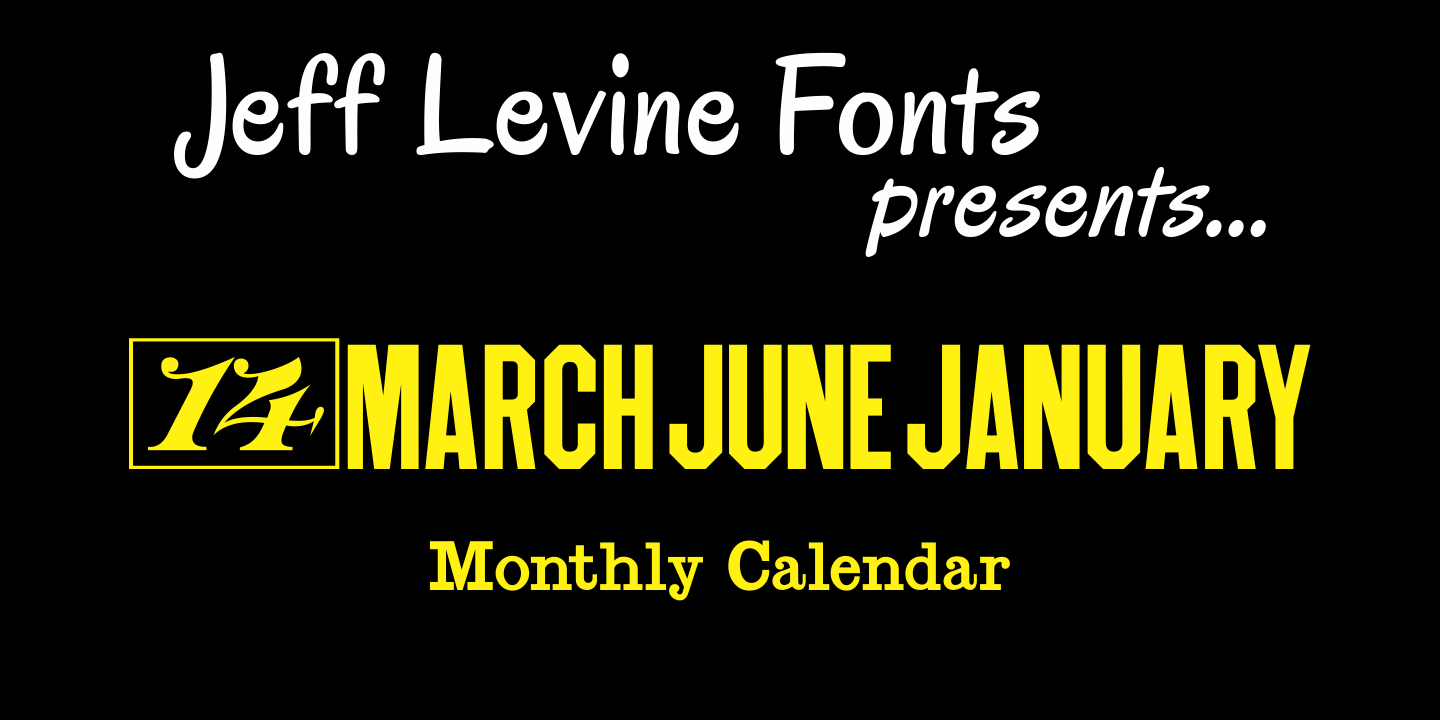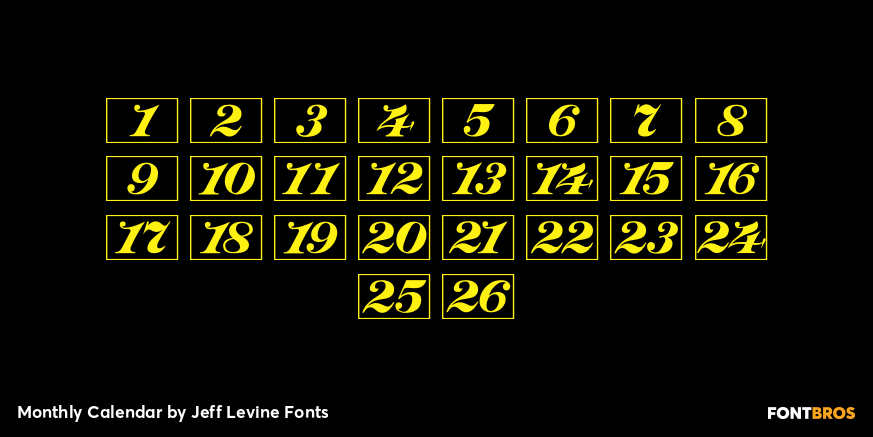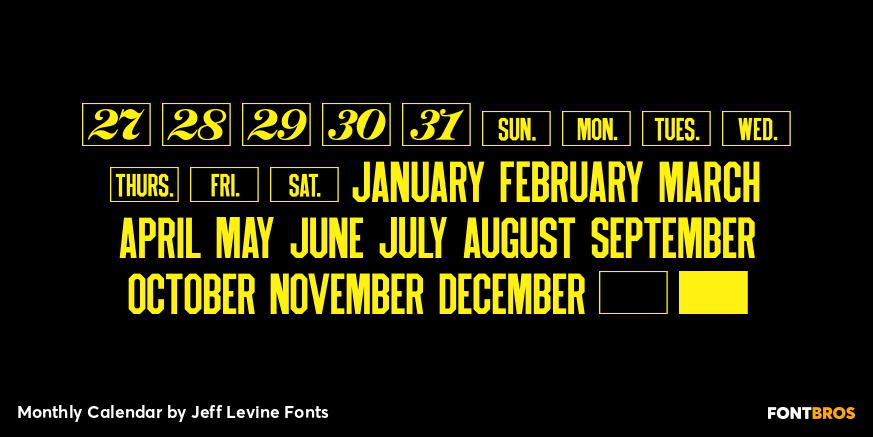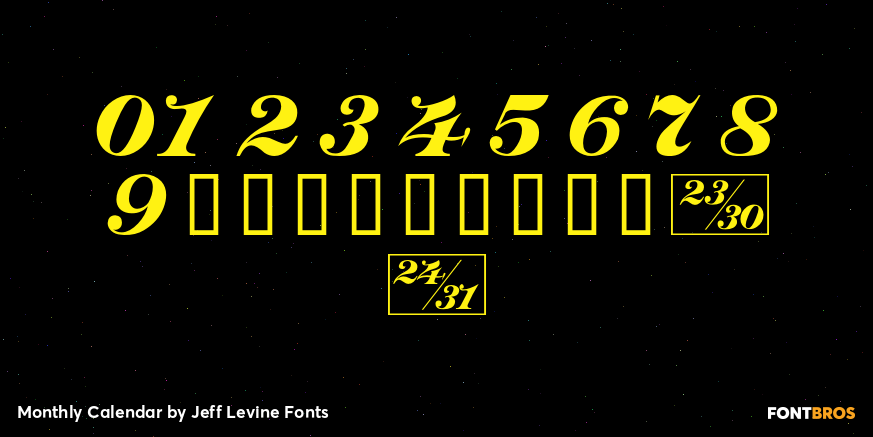
Monthly Calendar
Monthly Calendar JNL is a companion font to Calendar Blocks JNL, and features classic wood type lettering and numerals from the 1800s. A set of large numbers are on their own keys, while the numbers 1-31 reside on the A-Z and a-e keys respectively.
The days of the week are on the lower case "f" through "l" keys, while the names of the months are found on the "m" through "x" positions. An open rectangle is on the lower case "y" key, and a solid black rectangle is on the "z". For those who wish to use the 23/30 and 24/31 configurations, they can be found on the left and right parenthesis.